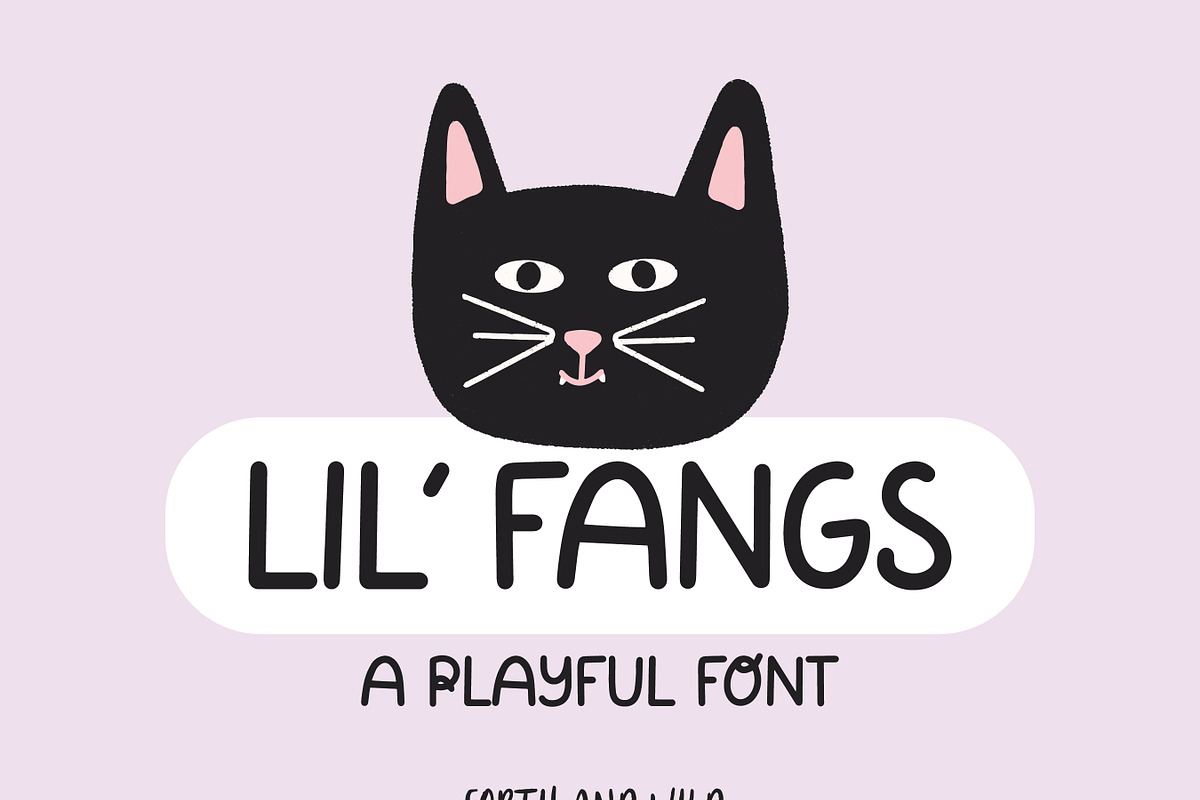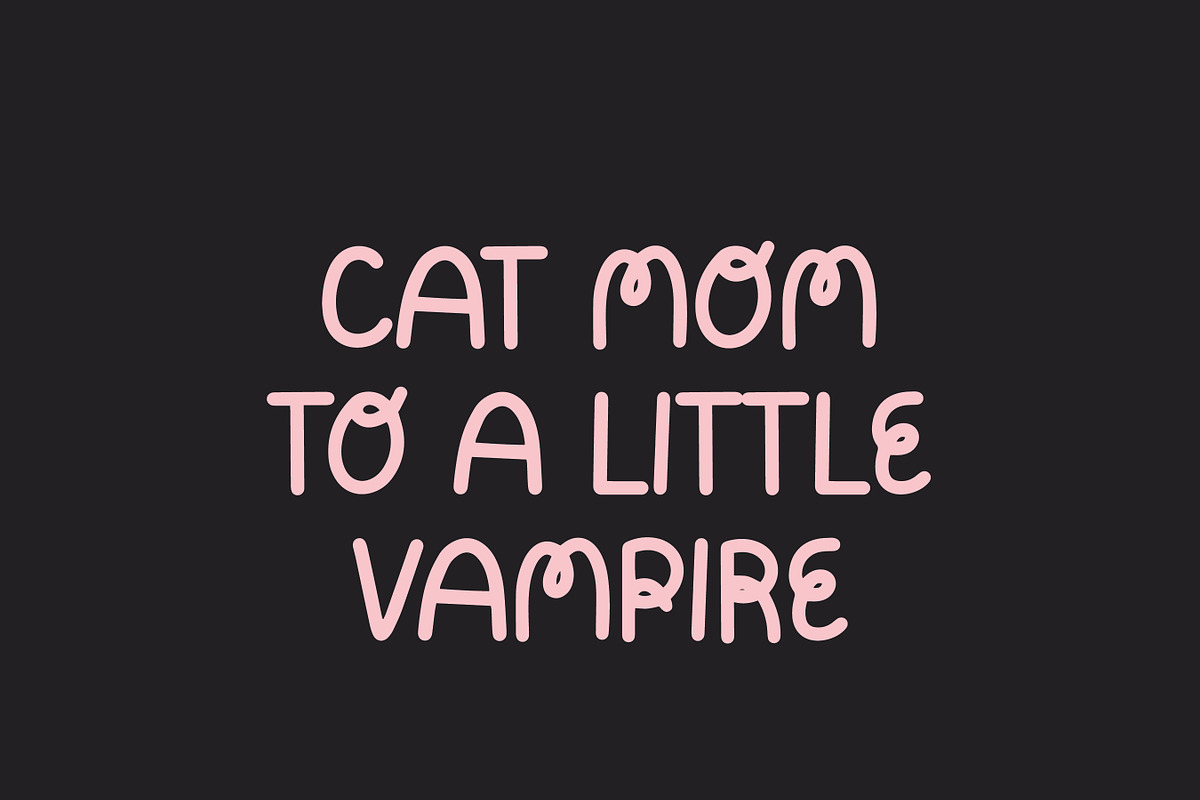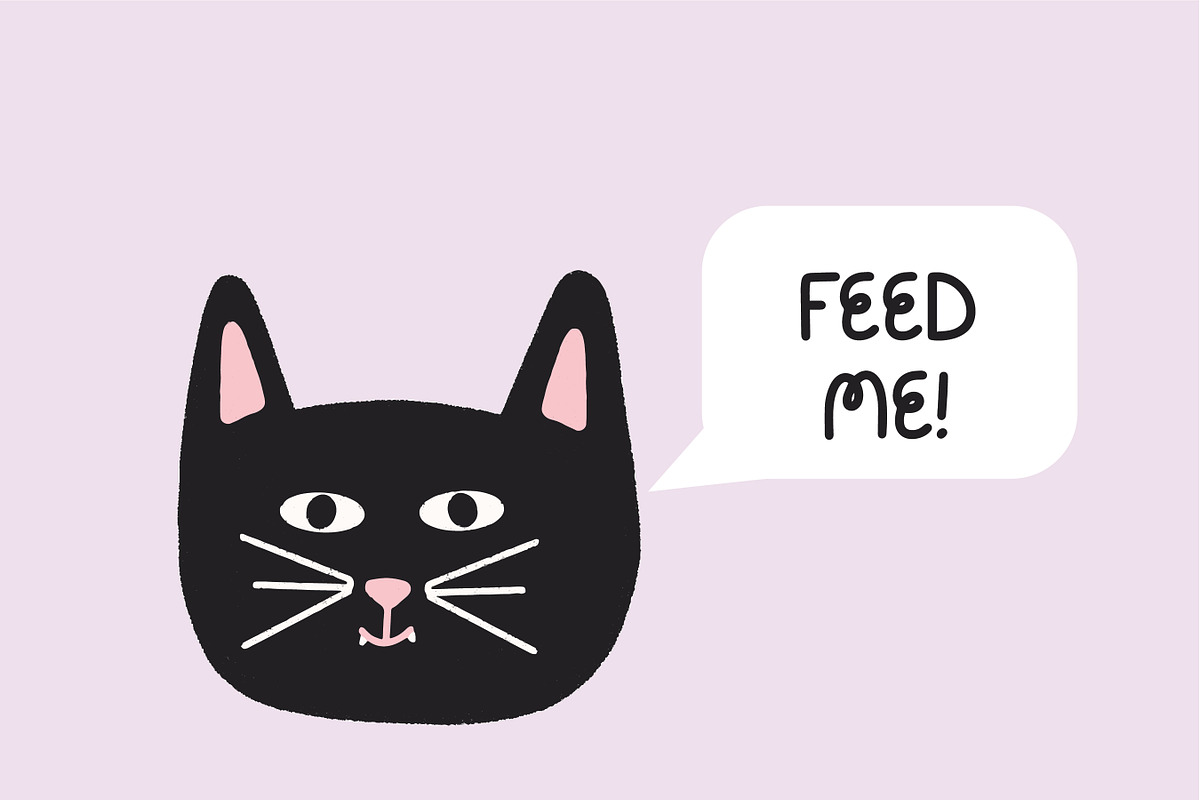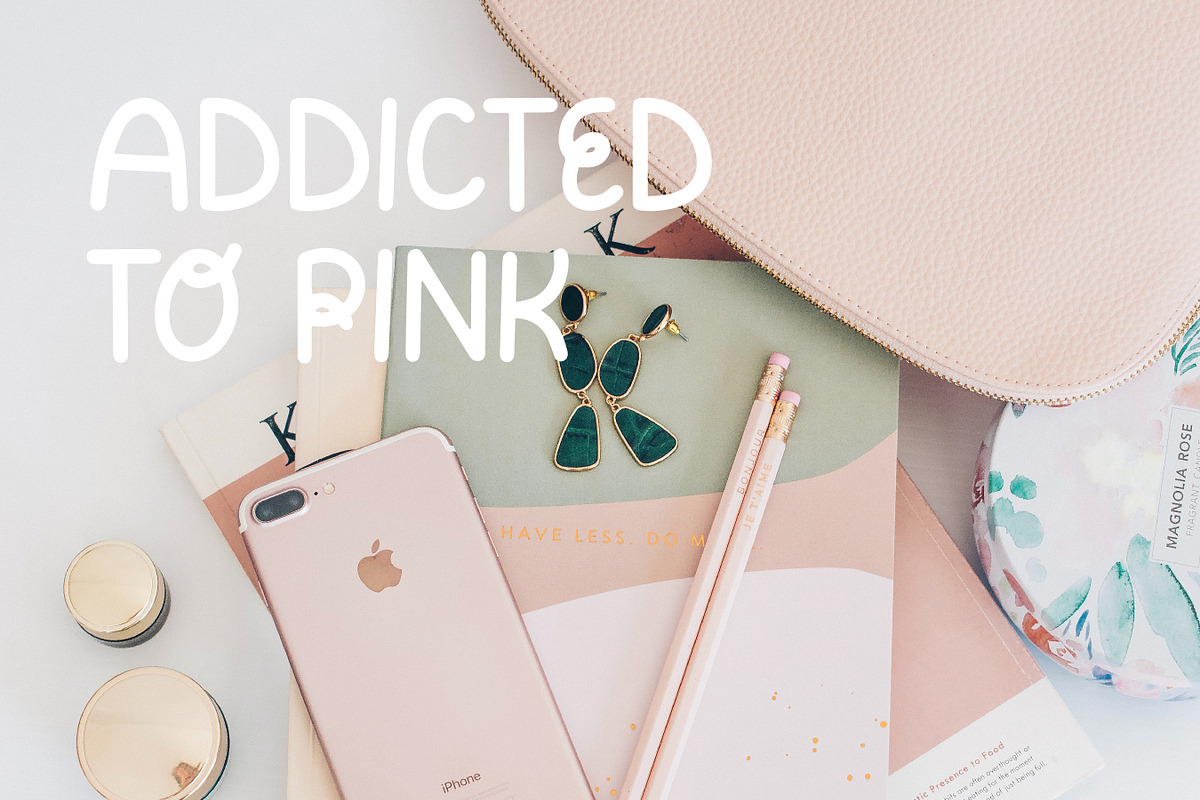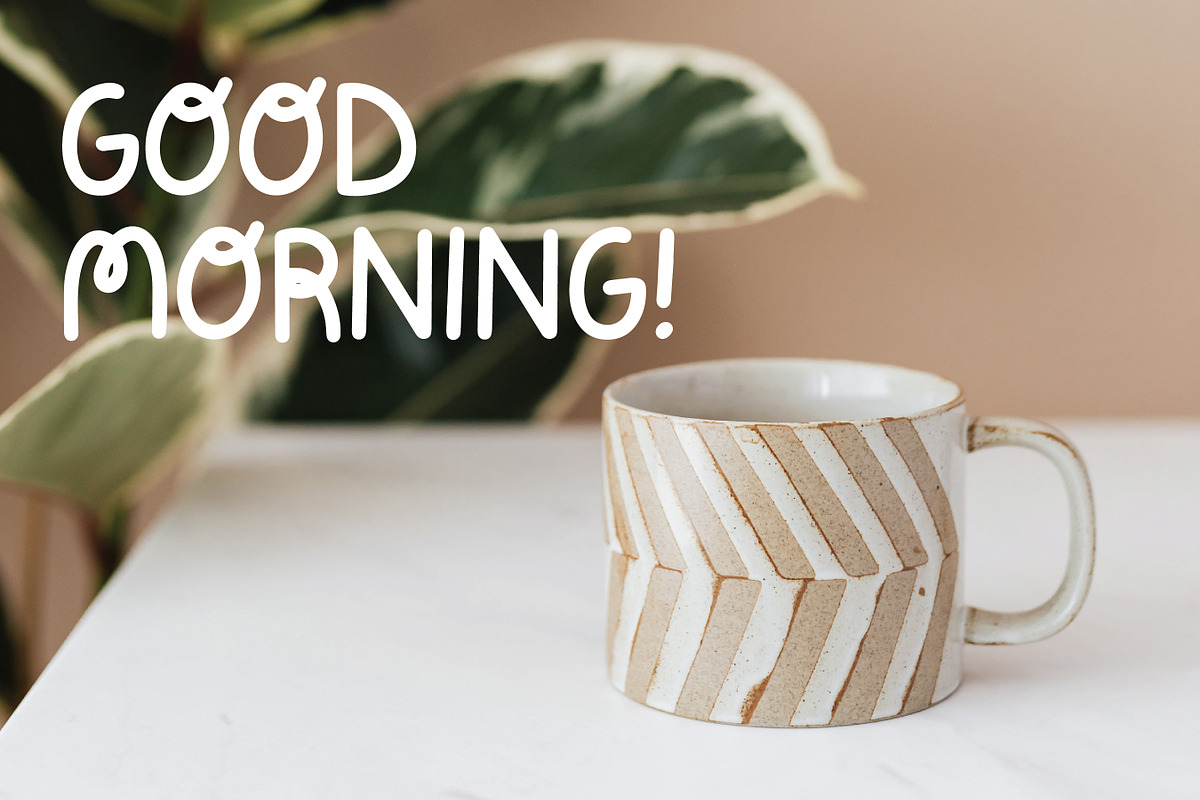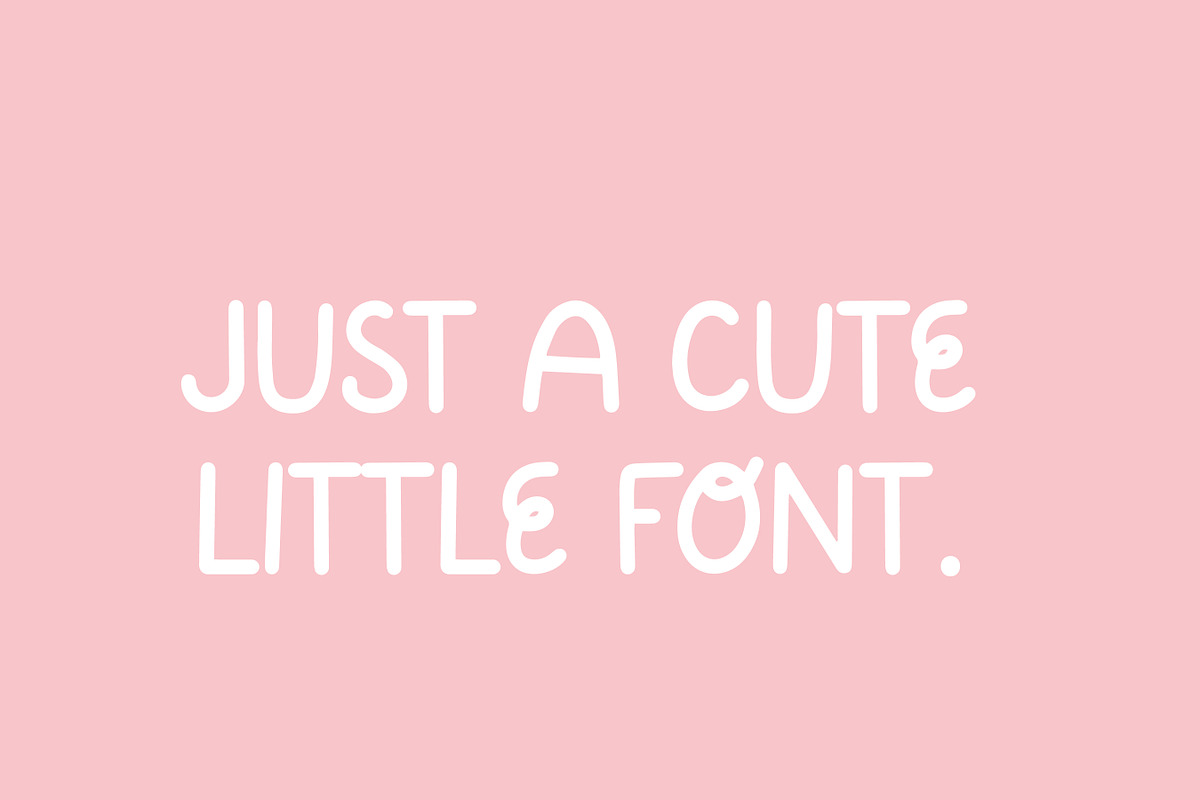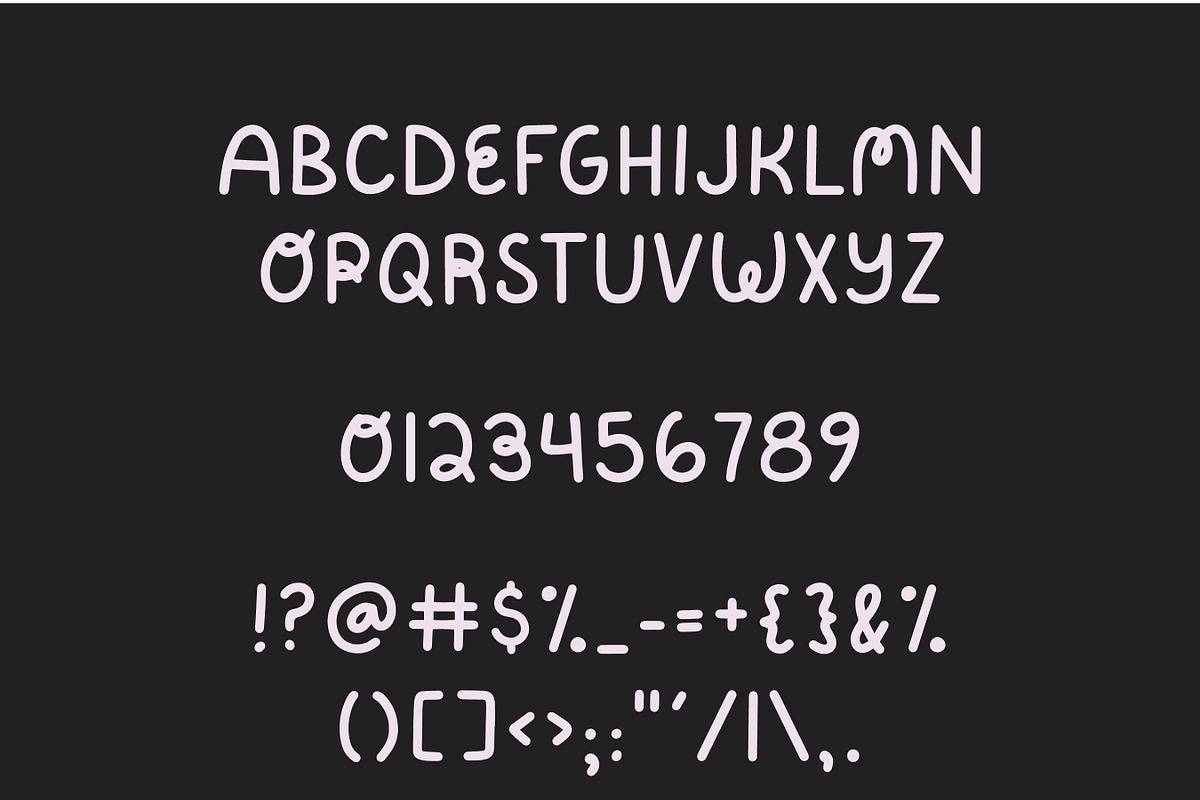
Fangs / Playful Hand-lettered Font
Fangs is a playful handwritten font that is perfect for adding a personal touch to your next project.
Fangs is a handwritten UPPERCASE display font. This font works great for creating logos, quotes to share on Instagram, social media, and more! Please note the font only comes with what you see on the second image. Punctuation and symbols are limited.